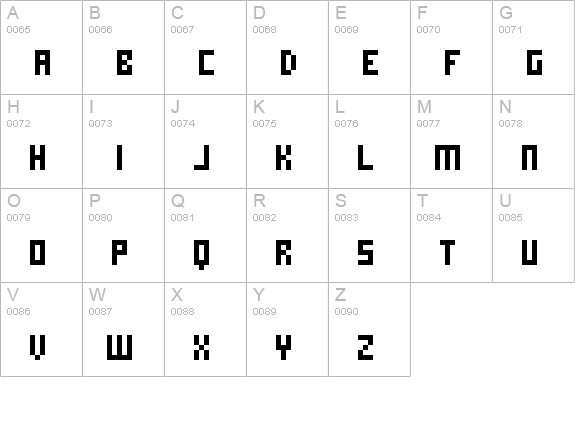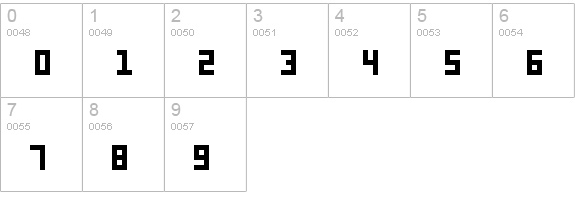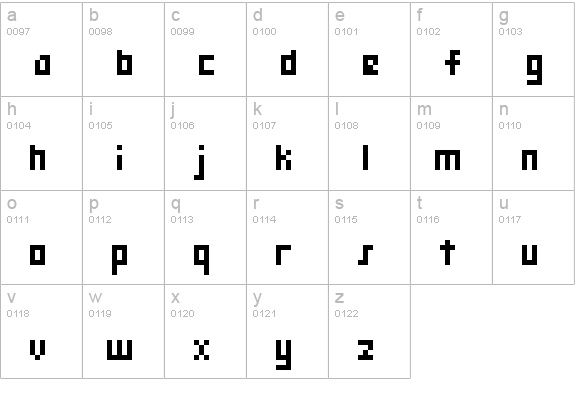
monooge 05_55 Font Details
Monooge 05_55 is a sleek and modern font that exudes sophistication and elegance. With its clean lines and sharp edges, this font is perfect for adding a touch of contemporary style to any design project. Whether you're creating a logo, designing a website, or crafting a poster, Monooge 05_55 will make your text stand out. What's even better is that Monooge 05_55 is available for free download at FontsMarket.com. This means you can easily access this stylish font without any cost, making it a great choice for budget-conscious designers. Don't miss out on the opportunity to enhance your projects with the striking Monooge 05_55 font – download it for free today!